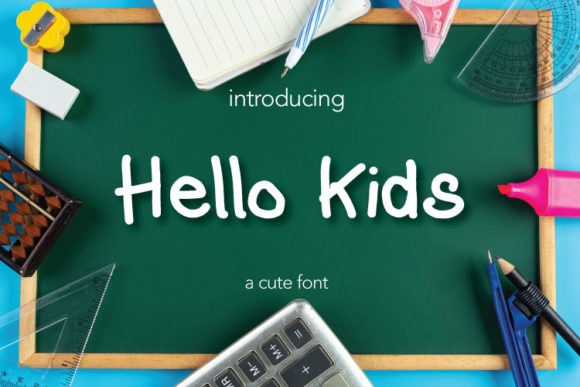
Introducing Hello Kids Font, the enchanting script font that will unleash your creativity!
Immerse yourself in the world of Hello Kids Font and let your imagination soar. This captivating script font is not just a collection of letters; it's a gateway to endless possibilities. With its authentic and personal touch, Hello Kids Font will transform your designs into captivating masterpieces.
Picture this: a heartfelt New Year card adorned with the whimsical strokes of Hello Kids Font. Your loved ones will be greeted with a warm and cheerful message, enveloped in the comforting embrace of this charming font. Or envision a classroom alive with inspiration, where lesson plans and teaching materials dance across the page in the vibrant script of Hello Kids Font.
This magnificent font is the brainchild of saykozzy, a creative visionary who has captured the essence of childhood wonder and playfulness in every curve and line. Its handwritten style evokes a sense of nostalgia and authenticity, making it perfect for any project that calls for a warm and inviting touch.
With Hello Kids Font, you'll discover a world of design possibilities. It's the perfect choice for adding a touch of whimsy to invitations, creating unique logos, or crafting enchanting social media posts. The possibilities are as limitless as your imagination.